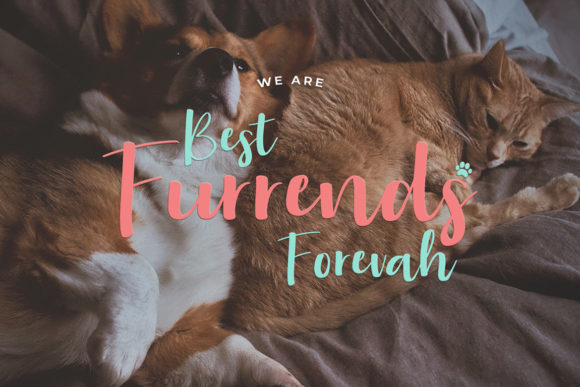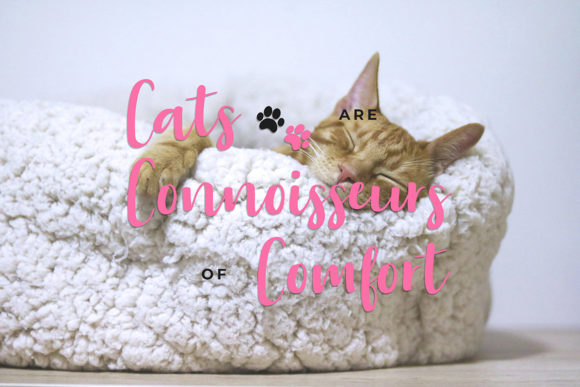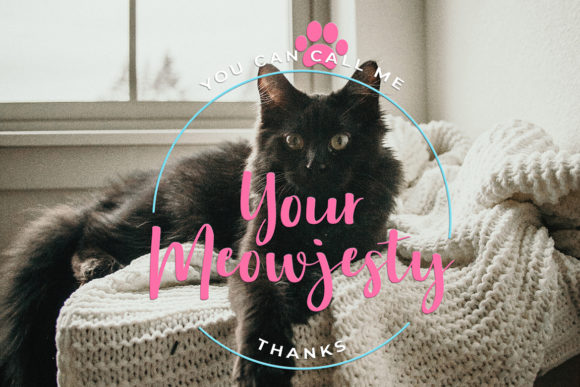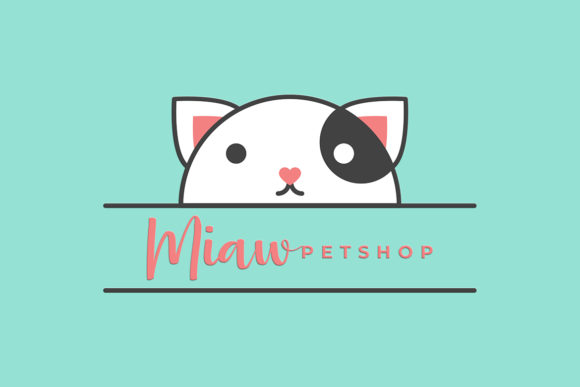
Aloha Miaw Font: Elevate Your Crafting Ideas with Charm and Whimsy
You know that moment when you’re working on a craft project and suddenly, a spark of inspiration hits you? You envision the perfect combination of colors, textures, and fonts that will bring your creation to life. For many designers, the right font can make all the difference between a good project and a great one.
That’s where the Aloha Miaw Font comes in – a delightful calligraphy script that’s sure to add a touch of charm and whimsy to any project. Whether you’re a seasoned crafter or a beginner, this font is perfect for turning your ideas into stunning, one-of-a-kind creations. With its cute and playful feel, the Aloha Miaw Font is a valuable asset for designers looking to add a personal touch to their work.
- Font Style: Aloha Miaw is a unique, handwritten font that combines elegance and playfulness, making it perfect for creative and artistic projects.
- Language Support: Aloha Miaw supports a wide range of languages, including Latin, Cyrillic, and Greek alphabets, making it suitable for international projects.
- Unique Characteristics: The font features swashes, ligatures, and alternate characters, adding a touch of whimsy and personality to any design.
I recently had the chance to work with the Aloha Miaw font, and I have to say it’s a mixed bag. Let’s start with the positives:
- ✨ Unique and playful style that’s perfect for creative projects
- ✨ Excellent for use in social media graphics, logos, and branding
- ✨ The font is well-optimized for digital use, making it a great choice for web design
However, I did encounter a few limitations:
- ⚠️ Limited font weights and styles may make it less versatile for complex designs
- ⚠️ Some characters may not be available in all languages, which could be a concern for international projects
- ⚠️ The font may not be suitable for large blocks of text, as it can become overwhelming
Overall, I think the Aloha Miaw font is a great choice for designers who want to add a touch of whimsy and playfulness to their projects. While it may not be the most versatile font, it’s perfect for smaller projects or as an accent font to add some visual interest. Just be mindful of the limitations, and you’ll be golden.
The Aloha Miaw Font is ideal for:
1. Social media graphics and posts.
2. Print materials such as business cards and flyers.
3. Web design elements such as headings and buttons.